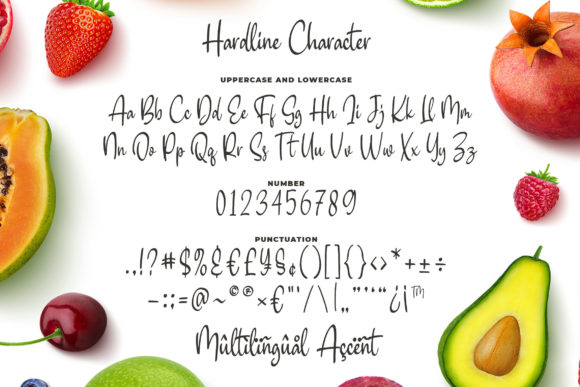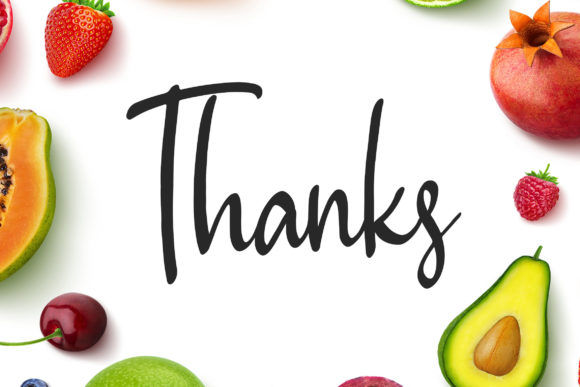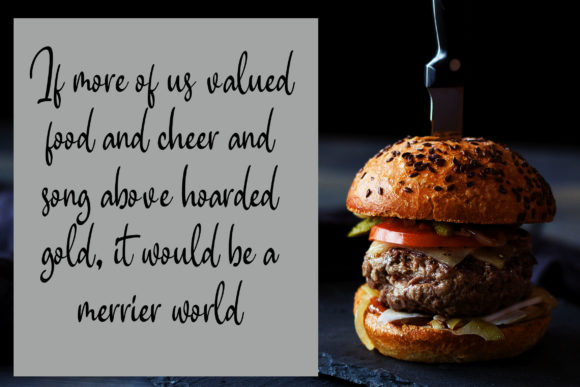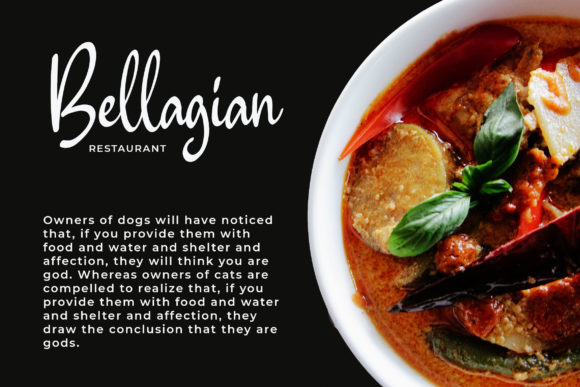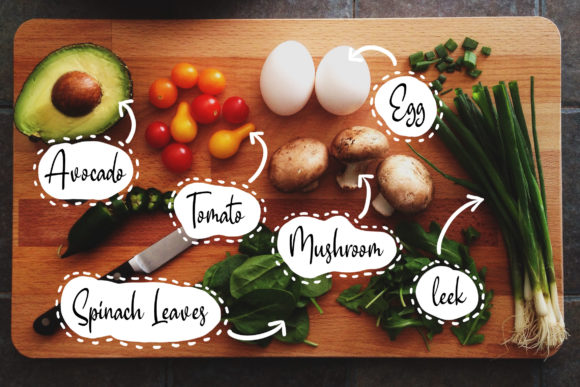
Introducing Hardline Font: The Perfect Blend of Modern Charm and Delicious Script
Are you on the hunt for a font that can add a touch of modern charm to your projects? Look no further than Hardline Font! This delicious script font is perfect for a wide variety of projects, from crafting and designing to writing and publishing. With its elegant and refined aesthetic, Hardline Font is sure to capture your heart and take your work to the next level.
The Story Behind Hardline Font
Hardline Font is a carefully crafted script font that boasts a unique and captivating style. Its modern charm is perfect for designers, crafters, and writers who want to add a touch of sophistication to their work. Whether you’re creating a logo, a poster, or a social media graphic, Hardline Font is the perfect choice.
Key Features of Hardline Font
- Unique and Captivating Style: Hardline Font features a distinctive and eye-catching design that sets it apart from other script fonts.
- Modern Charm: With its clean lines and elegant aesthetic, Hardline Font is perfect for projects that require a touch of modern sophistication.
- Versatile: Hardline Font can be used for a wide range of projects, from crafting and designing to writing and publishing.
- Elegant and Refined: This font features an elegant and refined aesthetic that is sure to impress.
Why Choose Hardline Font?
So, why choose Hardline Font for your next project? Here are just a few reasons:
- Adds a Touch of Sophistication: Hardline Font adds a touch of sophistication and elegance to any project.
- Perfect for a Wide Range of Projects: Whether you’re creating a logo, a poster, or a social media graphic, Hardline Font is the perfect choice.
- Easy to Read: Despite its elegant aesthetic, Hardline Font is easy to read and understand.
- Highly Versatile: Hardline Font can be used for a wide range of projects, from digital to print.
How to Use Hardline Font
Using Hardline Font is easy! Here are a few tips to get you started:
- Pair it with Other Fonts: Hardline Font pairs well with other fonts, such as sans-serif and serif fonts.
- Use it for Headings and Titles: Hardline Font is perfect for headings and titles, adding a touch of elegance and sophistication to your work.
- Experiment with Different Sizes: Hardline Font looks great in a variety of sizes, from small to large.
In conclusion, Hardline Font is a delicious script font that is perfect for a wide variety of projects. With its modern charm and elegant aesthetic, it’s sure to capture your heart and take your work to the next level. Whether you’re a designer, crafter, or writer, Hardline Font is a must-have font that will add a touch of sophistication and elegance to any project.